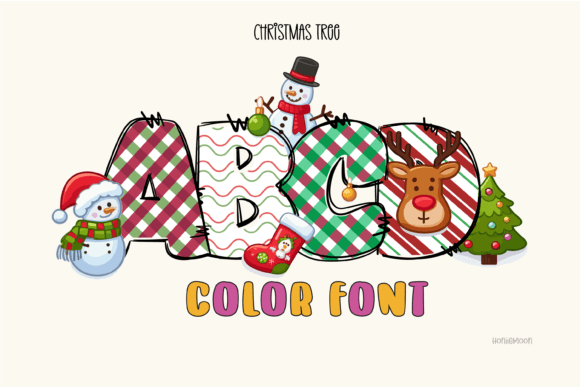
Christmas fonts are not just letters—they set the mood. They can be cute, playful, handwritten, retro, elegant, whimsical, or classic. The right alphabet font can transform a simple message like Merry Christmas, Joy, Noel, or Happy Holidays into a warm emotional design filled with festive charm.
What Are Christmas Alphabet Fonts?
Christmas alphabet fonts are special typography styles designed with holiday-themed elements such as:
Candy cane textures
Snowflakes
Lights and stars
Santa hats
Pine leaves
Bells and holly
Gingerbread and icing style
These fonts are perfect for holiday craft projects, party décor, gift packaging, and seasonal branding. Unlike standard fonts, Christmas alphabet fonts create a unique holiday aesthetic instantly—without needing extra design elements.
Why Are Christmas Alphabet Fonts So Popular?
Every year during November–December, thousands of creatives—from hobby crafters to professional designers—look for fonts to enhance:
Christmas cards
Cricut vinyl projects
Printable tags
Social media templates
Etsy and Shopify designs
School classroom crafts
Scrapbooking pages
Christmas is emotional, nostalgic, and joyful. Fonts help visually communicate that feeling.
Whether your style is elegant script or cute cartoon lettering, there’s a holiday font style that fits perfectly.
Popular Styles of Alphabet Fonts for Christmas
Below are some of the most downloaded Christmas alphabet styles:
| Style Type | Best Used For |
|---|---|
| Candy Cane Alphabet Fonts | Kids gifts, playful branding |
| Snowy Script Fonts | Greeting cards, winter décor |
| Cute Christmas Handwriting Fonts | Cricut crafts, labels, kid projects |
| Vintage Christmas Fonts | Retro posters, classic designs |
| Bold Display Christmas Fonts | Party banners, signage |
| Santa Hat Alphabet Fonts | Social media graphics, stickers |
| Christmas Lights Alphabet Fonts | YouTube thumbnails, merch |
Creative Ideas for Using Christmas Alphabet Fonts
Here are some fun ways to use them:
Custom holiday T-shirts and sweaters
Christmas party invitations
Classroom activity worksheets
Personalized ornaments
Digital Christmas greetings
YouTube holiday thumbnail titles
Christmas recipe cards
Gifts labels like Maria’s Hot Cocoa Mix
Advent calendar prints
Etsy printable shop designs
With the right alphabet font, even a simple word becomes festive.
Final Thoughts
Alphabet Fonts for Christmas make holiday designs more fun, personalized, and visually engaging. Whether you’re creating festive invitations, Cricut crafts, party decorations, logos, or digital content, these fonts add charm and personality to holiday messages.